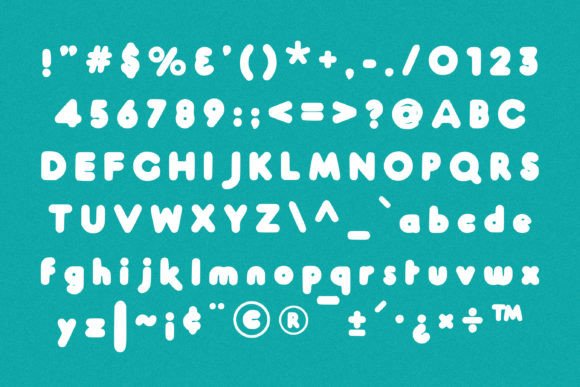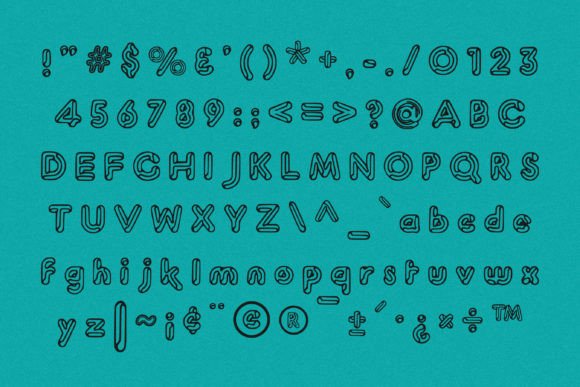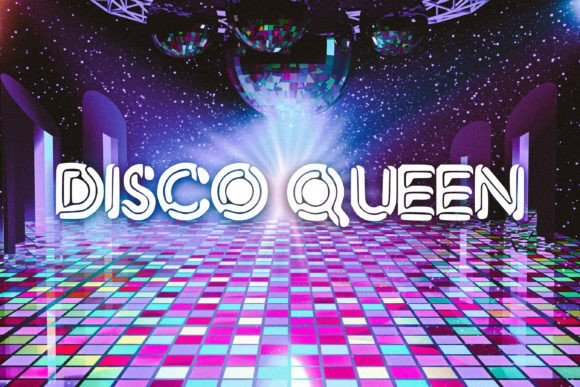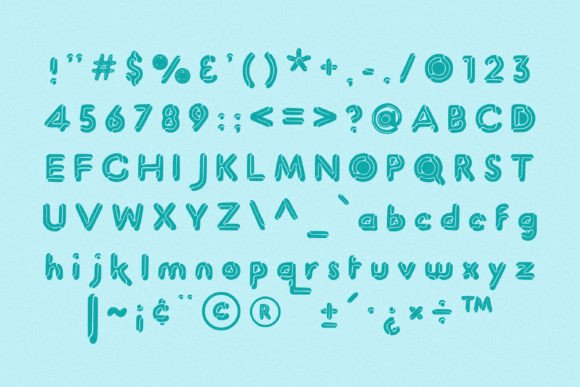
Introducing the Disco Queen Font: Elevate Your Designs with a Touch of Glamour
Are you a designer or crafter looking to add a dash of excitement and modernity to your creations? Look no further than the Disco Queen Font, a fun and versatile display font family that’s sure to become a staple in your font library. With its three typefaces – Regular, Outline, and Solid – this font is perfect for a wide range of projects, from party invitations and posters to social media graphics and branding materials.
The Disco Queen Font Family: A Trio of Typefaces
The Disco Queen Font family consists of three distinct typefaces, each with its own unique characteristics. The Regular typeface is perfect for creating bold and eye-catching headlines, while the Outline typeface adds a touch of elegance and sophistication to your designs. The Solid typeface, on the other hand, is ideal for creating striking and modern designs that demand attention.
Why Choose the Disco Queen Font?
So why should you choose the Disco Queen Font for your next project? Here are just a few reasons:
- Versatility: With three typefaces to choose from, the Disco Queen Font is incredibly versatile and can be used for a wide range of projects and applications.
- Modern and Fun: This font is perfect for designers and crafters who want to add a touch of modernity and fun to their creations.
- Elegance and Sophistication: The Outline typeface adds a touch of elegance and sophistication to your designs, making it perfect for more formal projects.
- Easy to Read: Despite its bold and playful appearance, the Disco Queen Font is easy to read, even at smaller sizes.
The Disco Queen Font is perfect for designers and crafters who want to create stunning and eye-catching designs. Whether you’re working on a party invitation, poster, or social media graphic, this font is sure to elevate your design and make it stand out from the crowd.
Tips for Using the Disco Queen Font
Here are a few tips for using the Disco Queen Font in your designs:
- Experiment with Different Typefaces: Don’t be afraid to experiment with different typefaces to find the one that works best for your project.
- Play with Colors and Textures: The Disco Queen Font looks great with bold and bright colors, as well as fun textures and patterns.
- Use it for Headlines and Titles: This font is perfect for creating bold and eye-catching headlines and titles.
In conclusion, the Disco Queen Font is a fun and modern display font family that’s perfect for designers and crafters who want to add a touch of glamour and sophistication to their creations. With its three typefaces, versatility, and ease of use, this font is sure to become a staple in your font library. So why wait? Download the Disco Queen Font today and start creating stunning and eye-catching designs that demand attention!
- Fun and modern display font family
- Three typefaces: Regular, Outline, and Solid
- Perfect for party invitations, posters, social media graphics, and branding materials
- Easy to read, even at smaller sizes
- Versatile and can be used for a wide range of projects and applications
Whether you’re a seasoned designer or a crafter just starting out, the Disco Queen Font is a great addition to your font library. So go ahead, get creative, and let the Disco Queen Font help you take your designs to the next level!